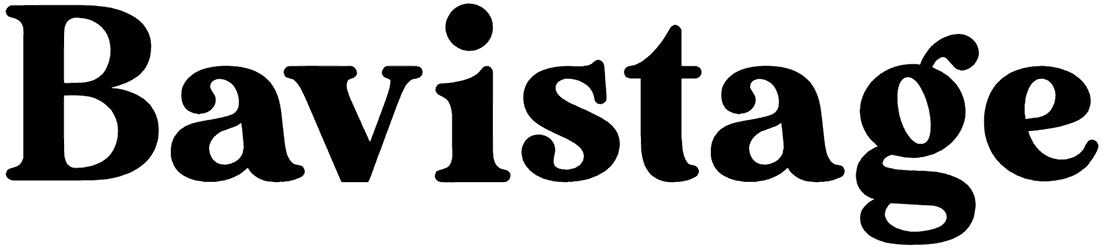
Bavistage Font
Bavistage is a basic serif font that conveys sophistication and elegance. Each design project, from branding and marketing materials to publications like newspapers and magazines, can benefit from its clean lines and balanced proportions.
A Font by Aluyeah Studio
Hallo Aluyeaholic! Introducing Bavistage, a broken smile typeface. Inspired by the vintage vibe of a girl’s broken smile. It gives you past memories, disappointments and happiness at the same time.